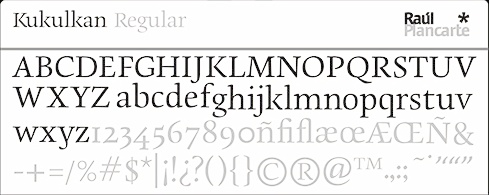
Letra Case [Raúl García Plancarte]
Born in the Yucatan in 1980, Raúl García Plancarte obtained a graphic design degree from Centro de Estudios Gestalt in Veracruz. Co-founder of Círculo de Tipógrafos in Mexico. Founder of Letracase, where one can buy his fonts.
Designer of these typefaces:
• Kukulkan (2008). Winner in the Tipos Latinos 2008 competition for best text family. At Tipos Latinos 2010, it won a grand prize for text family.
• Tauran (2006). Winner of an award at Tipos Latinos 2008 for best extensive text family.
• Expres Neo Slab> (2007).
• Sedna (2009). An award winner at Tipos Latinos 2010.
• Célula (2009).
• Comex and Gandhi (codesigned with Cristobal Henestrosa). At Tipos Latinos 2012, Comex and Gandhi won awards in the typeface family category.
• Soberana Sans (Raúl Plancarte and Cristóbal Henestrosa). Made for the Mexican Government in 2012-2013. Award winner at Tipos Latinos 2014.
• The text typeface Terafile (2015). Winner of an award at Tipos Latinos 2016 and again at Tipos Latinos 2018. Published by Sudtipos in 2021.
• Ayotzinapa (2015, by Raul Plancarte and Cristobal Henestrosa). Award winner at Tipos Latinos 2016.